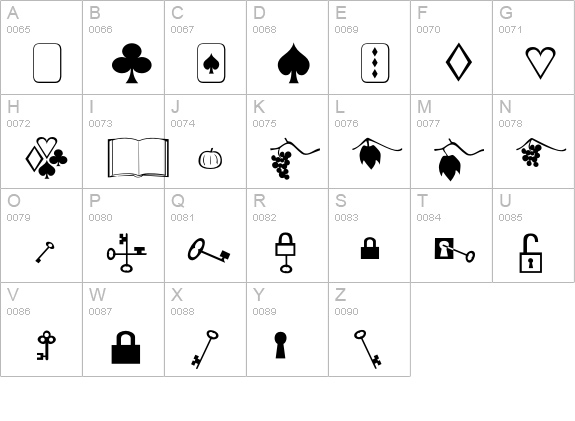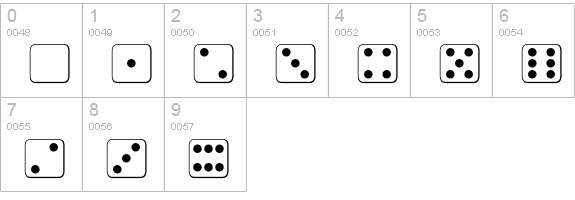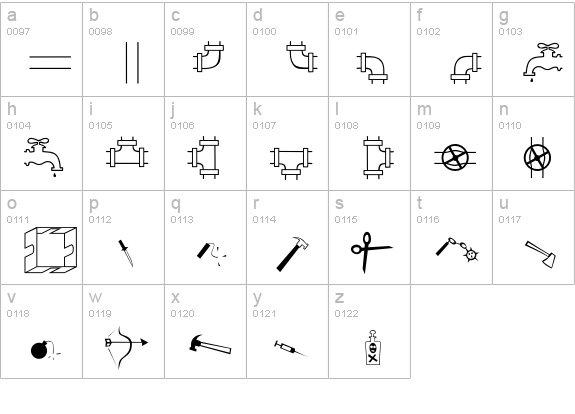
AlbumZwei Font Details
AlbumZwei font is a modern and stylish typeface that exudes sophistication and elegance. This versatile font is perfect for a wide range of design projects, from branding to editorial design. With its clean lines and unique aesthetic, AlbumZwei font adds a touch of class to any layout. What sets AlbumZwei font apart is its sleek and contemporary design, making it a popular choice for designers looking to create impactful and memorable designs. Whether you're working on a logo, website, or print materials, AlbumZwei font will help your work stand out from the crowd. The best part? AlbumZwei font is available for free download at FontsMarket.com. So you can elevate your designs without breaking the bank. Don't miss out on this opportunity to add a touch of sophistication to your projects with AlbumZwei font. Download it today and take your designs to the next level.